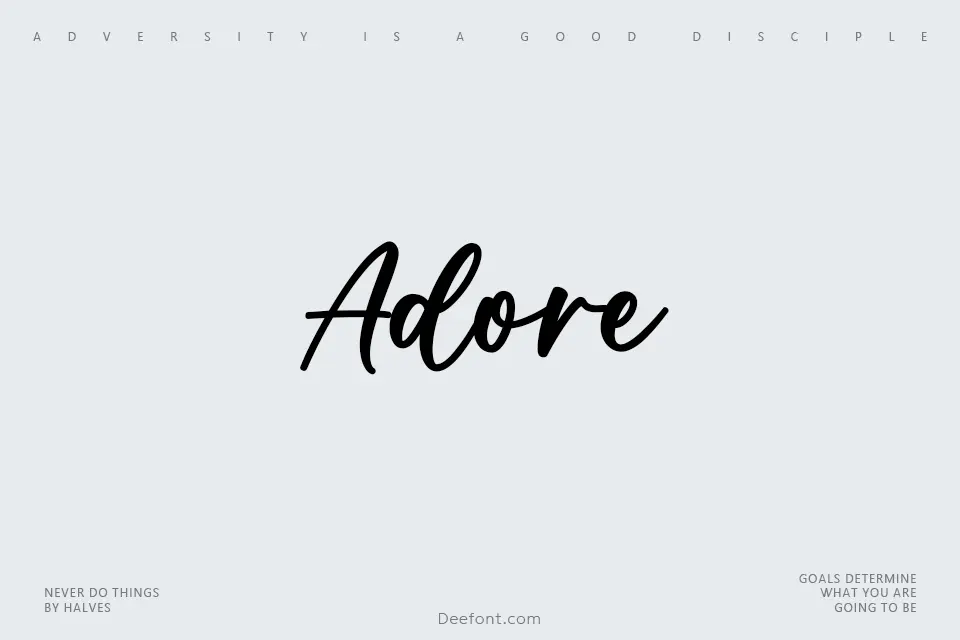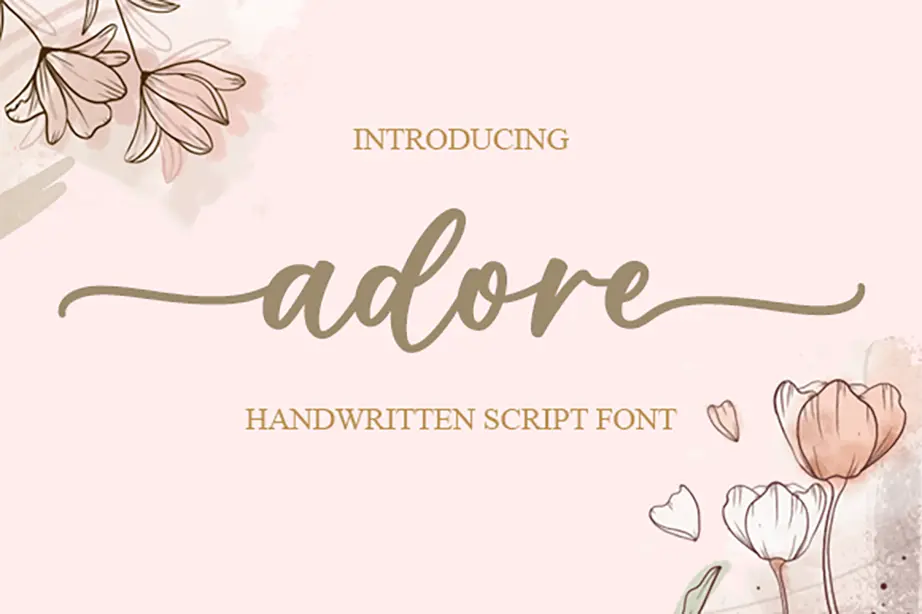
Adore Font
Adore is a flowing, connected handwritten script font with smooth curves and elegant appearance. Featuring slightly slanted characters that mimic natural handwriting with consistent stroke thickness, this versatile typeface is perfect for wedding invitations, greeting cards, personal signatures, and creative branding projects. The semi-bold weight and narrow width make it ideal for headlines, titles, and social media graphics while maintaining readability at smaller sizes.